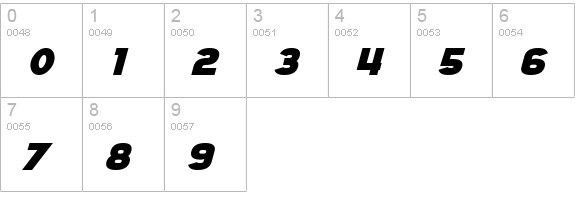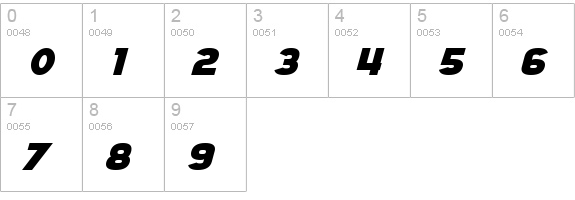
SF Juggernaut Condensed Bold Italic Font Details
SF Juggernaut Condensed Bold Italic is a strong, high-contrast, condensed-width, italic variant in the SF typeface family \xE2\x80\x94 well suited to headlines, attention-grabbing titles, and strong calls-to-action.
SF Juggernaut Condensed Bold Italic font is a sleek and modern typeface that exudes power and confidence. Its condensed form allows for efficient use of space, making it perfect for headlines, branding, and display purposes. The bold and italic variations add emphasis and style to your designs, capturing attention and leaving a lasting impression. This font features clean lines and sharp edges, giving it a futuristic and technological feel. It is well-suited for projects that require a contemporary and cutting-edge aesthetic. Whether you're designing a logo for a tech startup or creating striking visuals for a science fiction book cover, SF Juggernaut Condensed Bold Italic font will make your work stand out. One of the best aspects of SF Juggernaut Condensed Bold Italic font is that it is freely available to download at FontsMarket.com. This means that you can easily access and use this font in your design projects without any cost or restrictions. FontsMarket.com offers a wide range of high-quality fonts, and SF Juggernaut Condensed Bold Italic font is just one of the many exceptional options available. With its boldness, condensed form, and italic variation, SF Juggernaut Condensed Bold Italic font is a versatile and powerful tool for designers. Whether you're creating posters, websites, or advertising materials, this font will help you make a bold statement and leave a lasting impression on your audience. So why wait? Download SF Juggernaut Condensed Bold Italic font today from FontsMarket.com and elevate your designs to new heights.